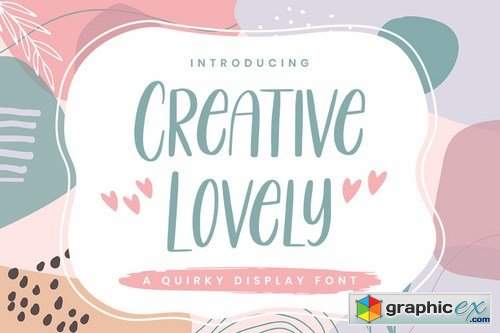
Creative Lovely - Playful Font
Creative Lovely is a cute and quirky display font. It will add an incredibly fun and trendy touch to your designs. This font is perfect for children themed designs, especially when combined with bright colors.